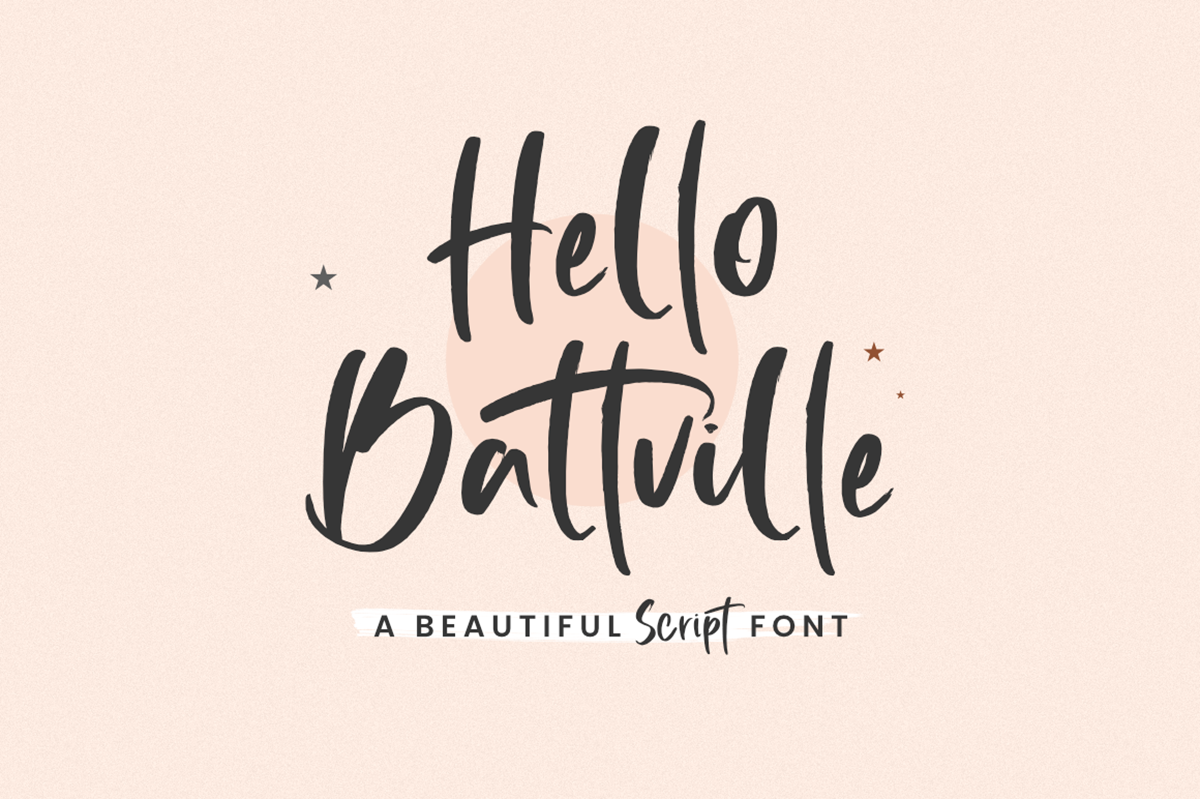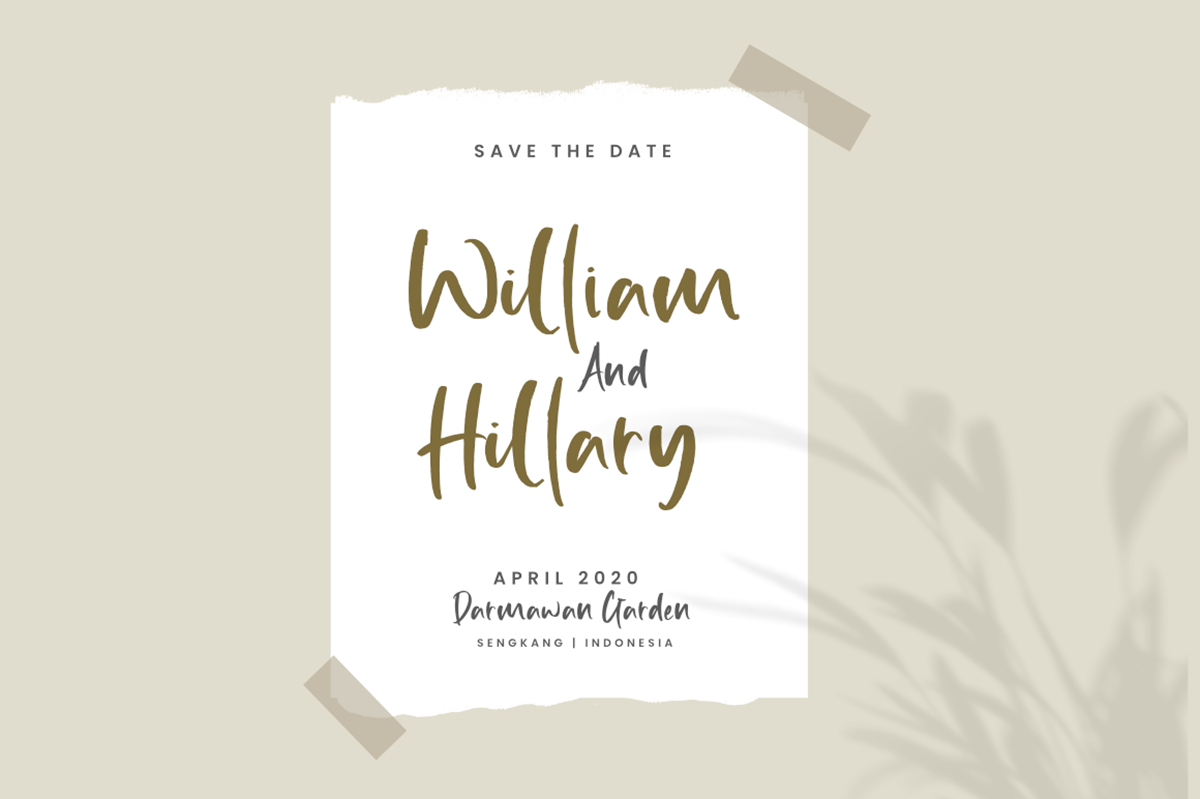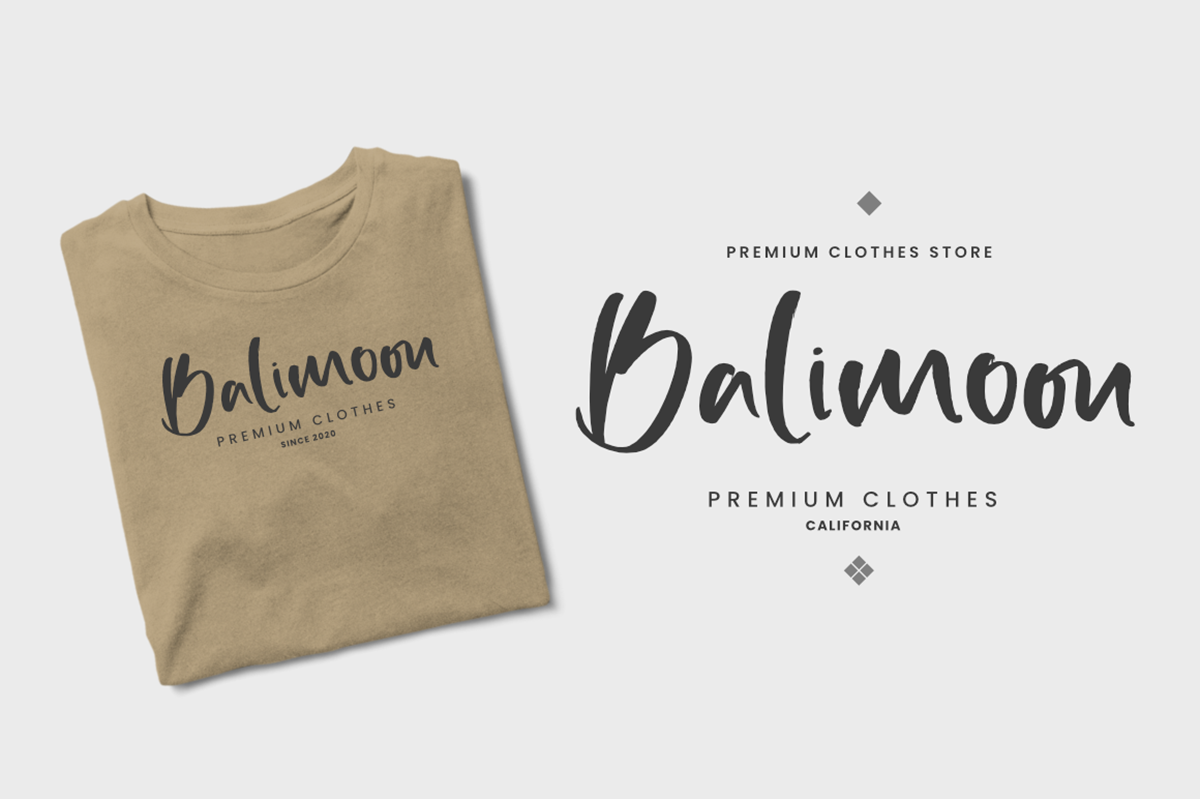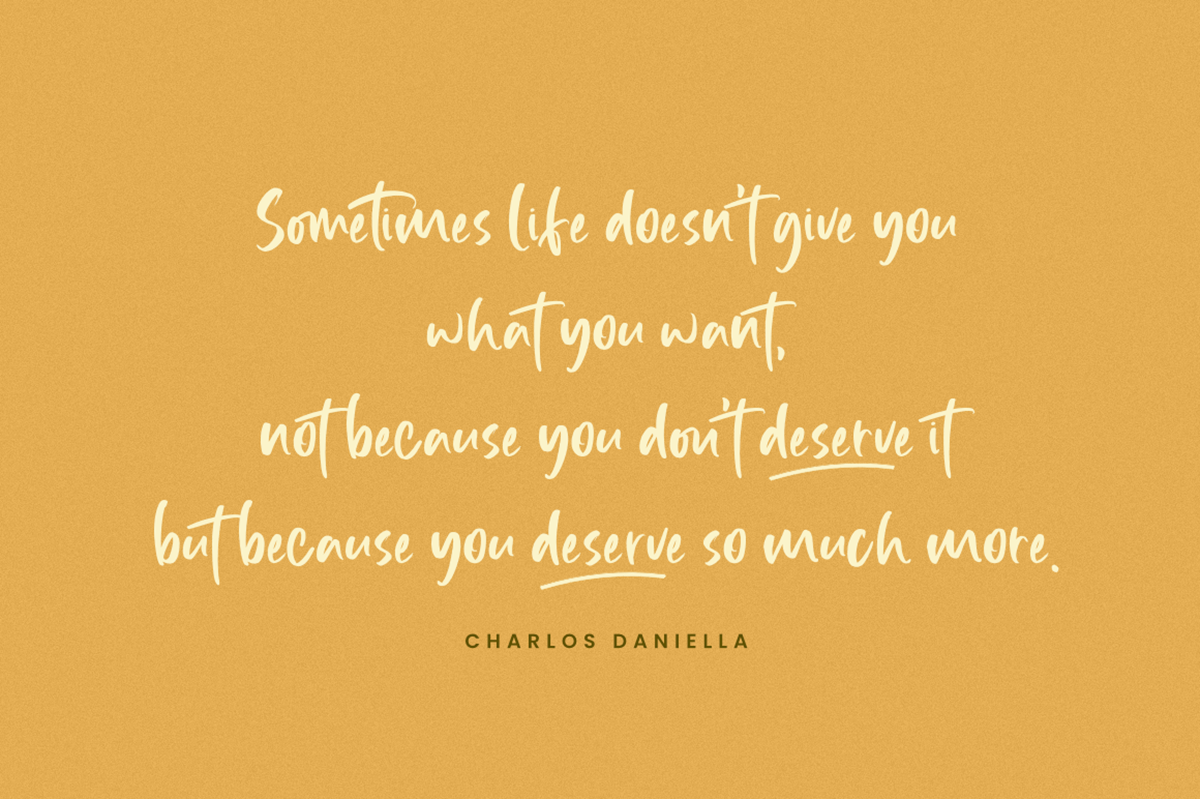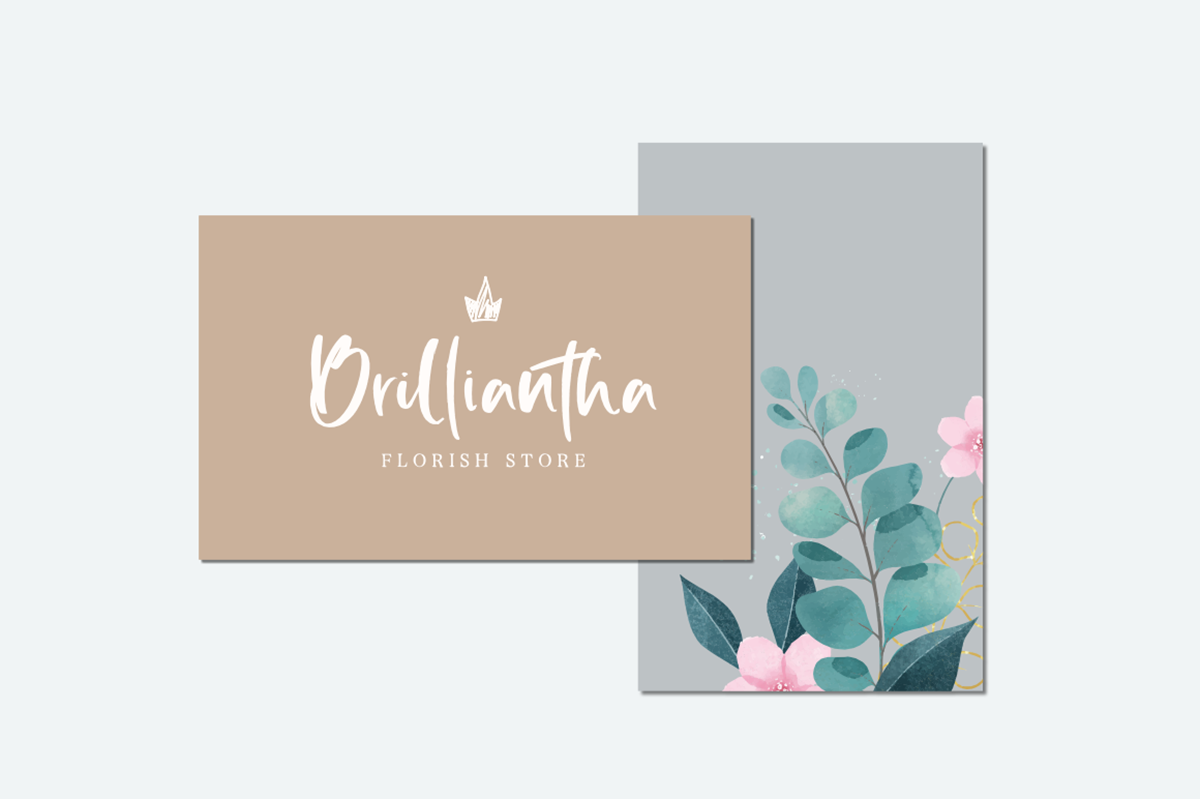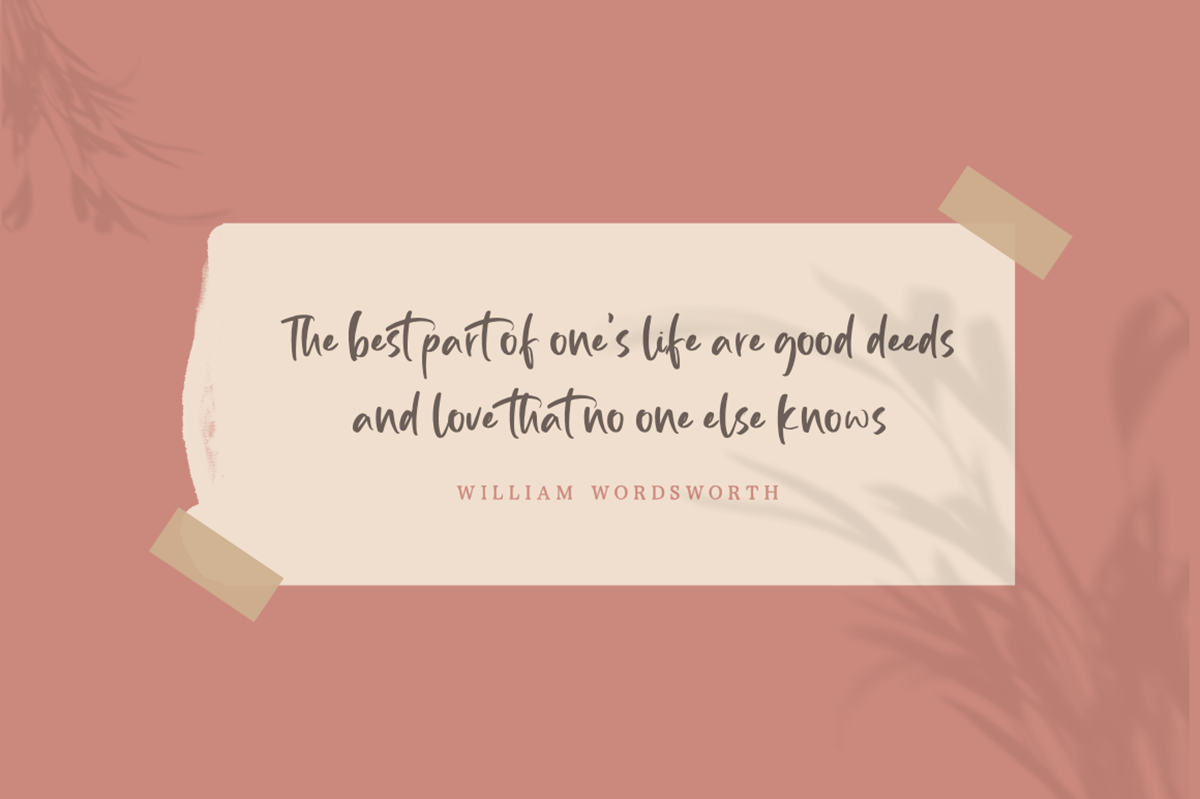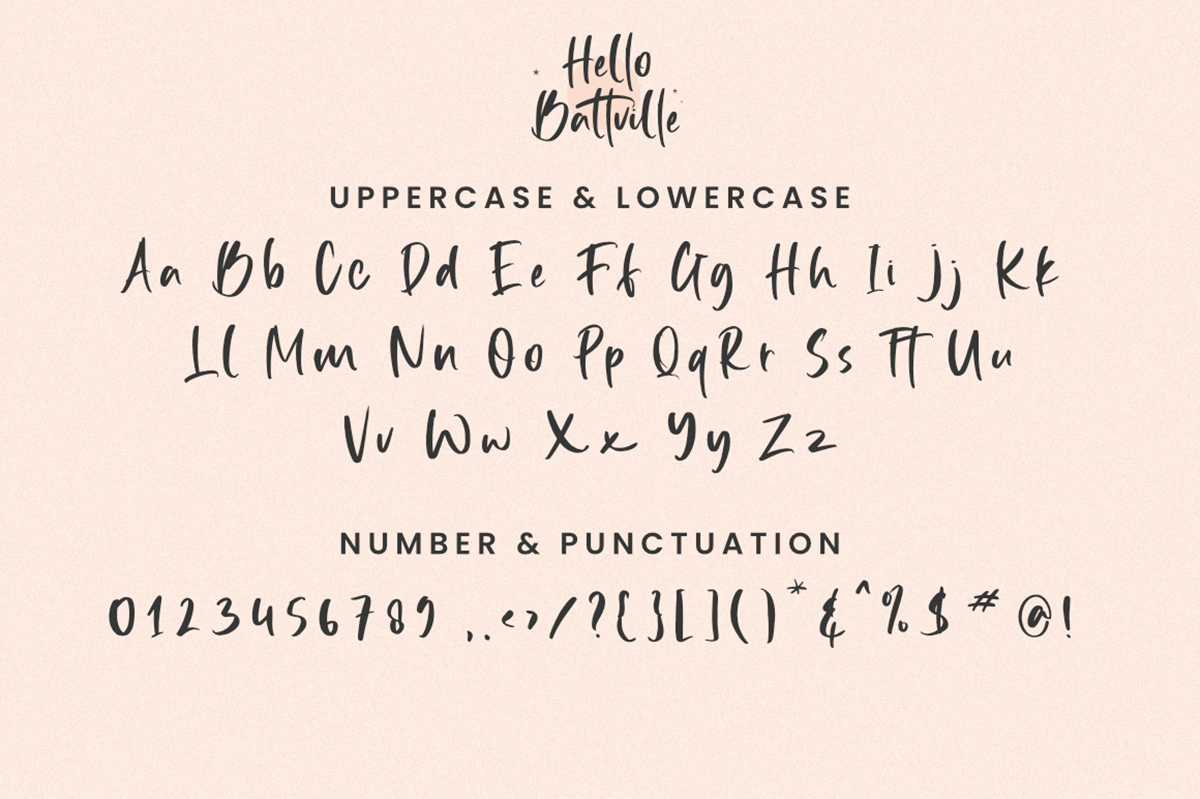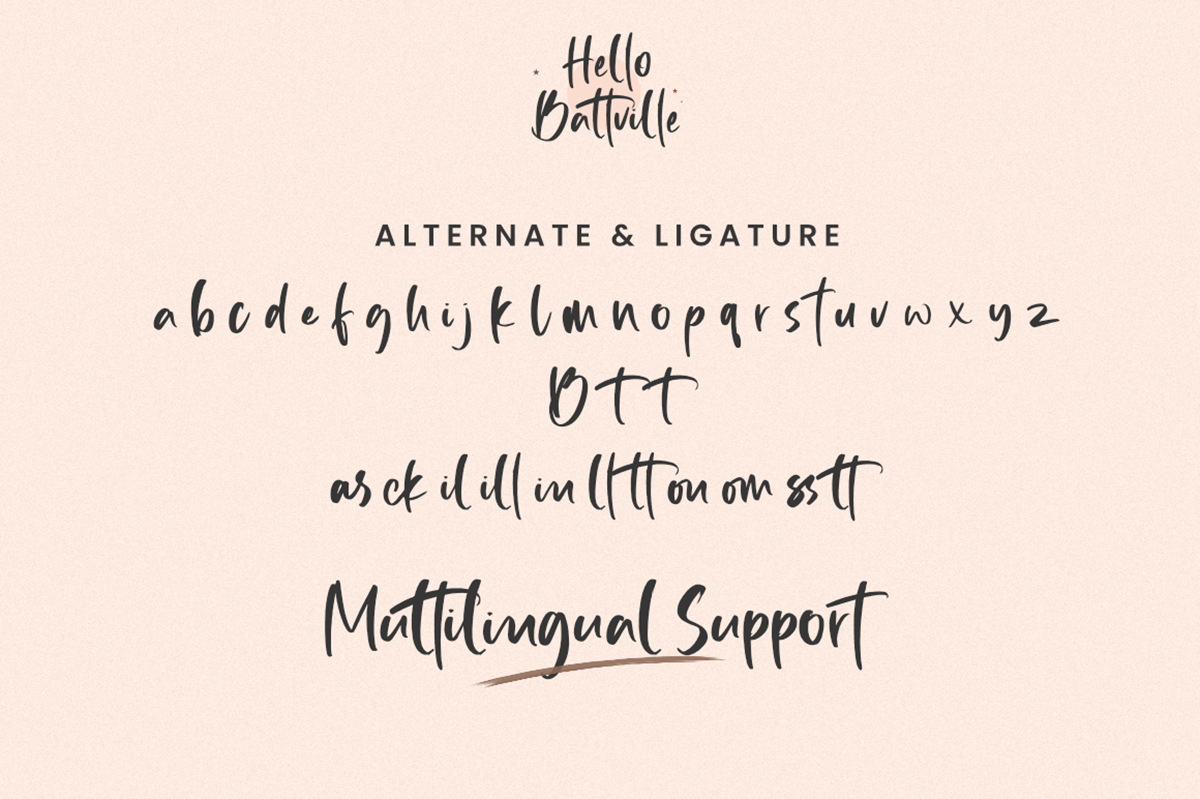
Hello Battville Script Font is a beautiful handwritten font, with the beautiful shape of each letter. Use this font to make your design more attractive and beautiful. There are alternate uppercases and standard ligatures that you can use, of course, this will really help you in beautifying your design. This is suitable for logo, branding, magazine, t-shirt, clothes, weddings, and many more!
Hello Battville